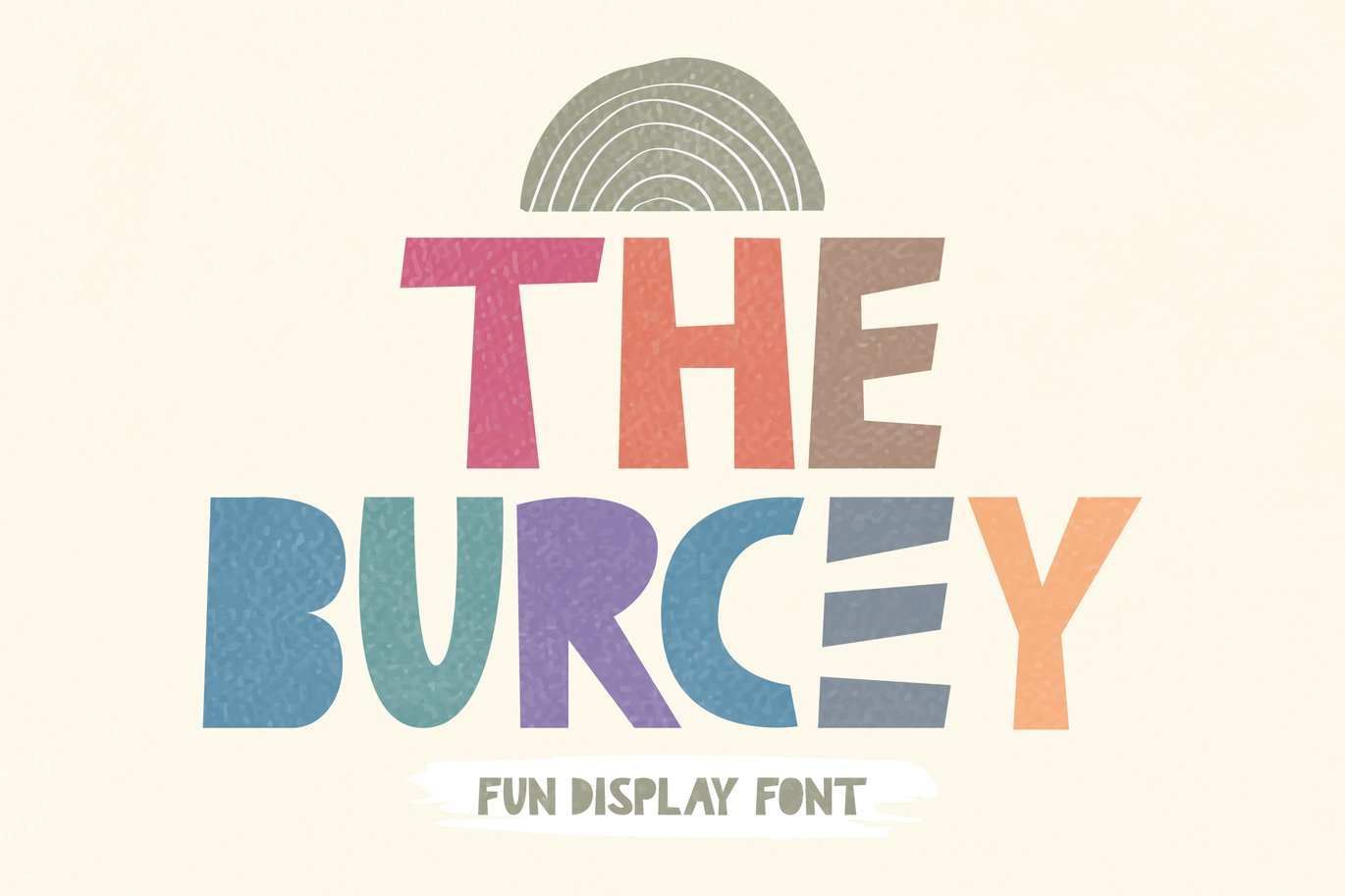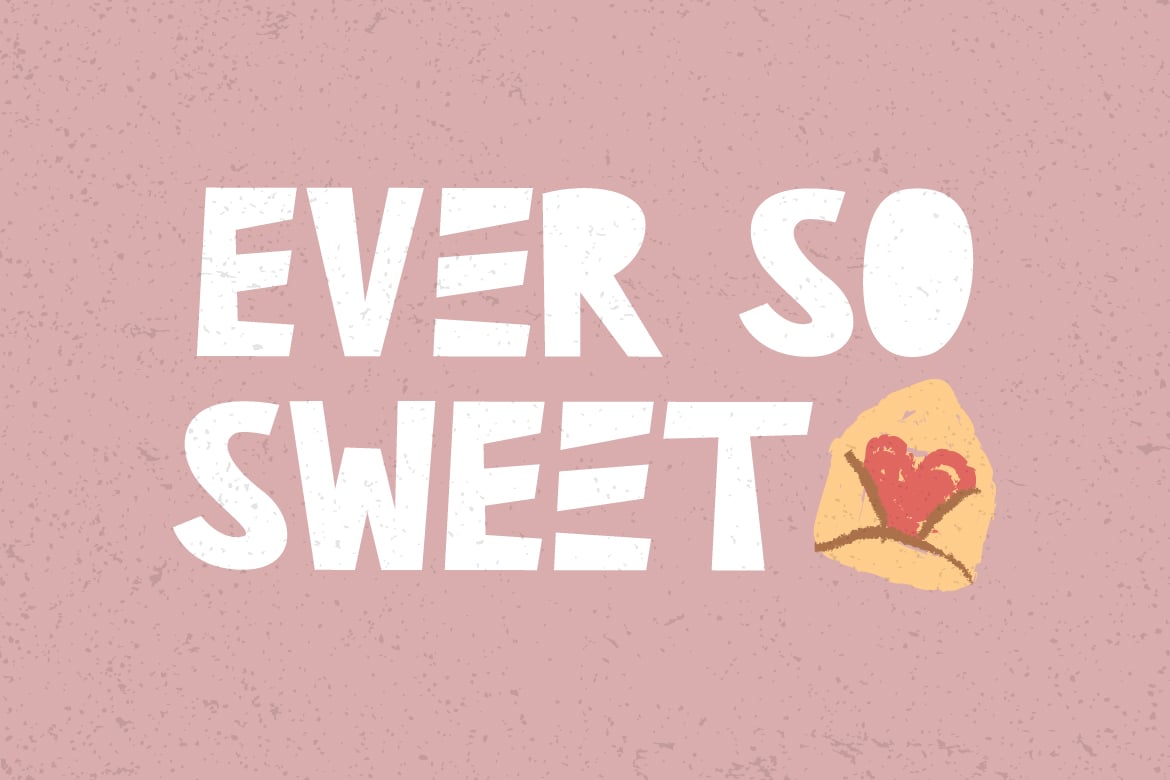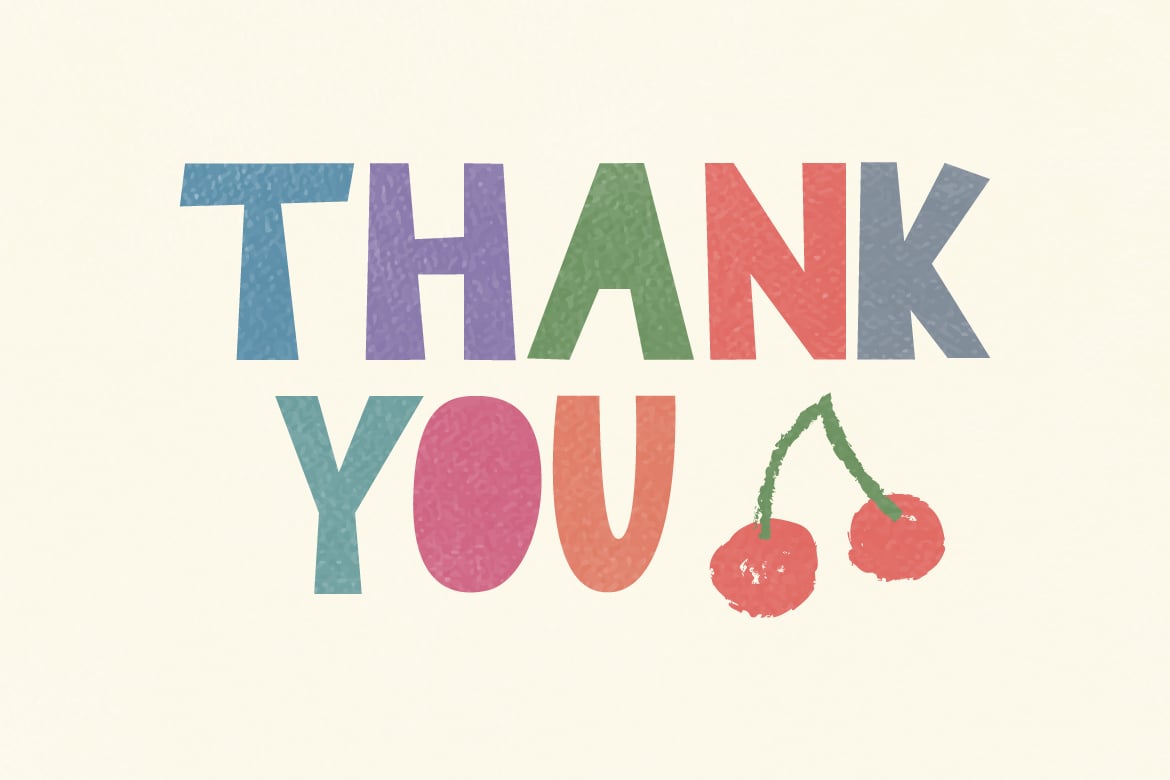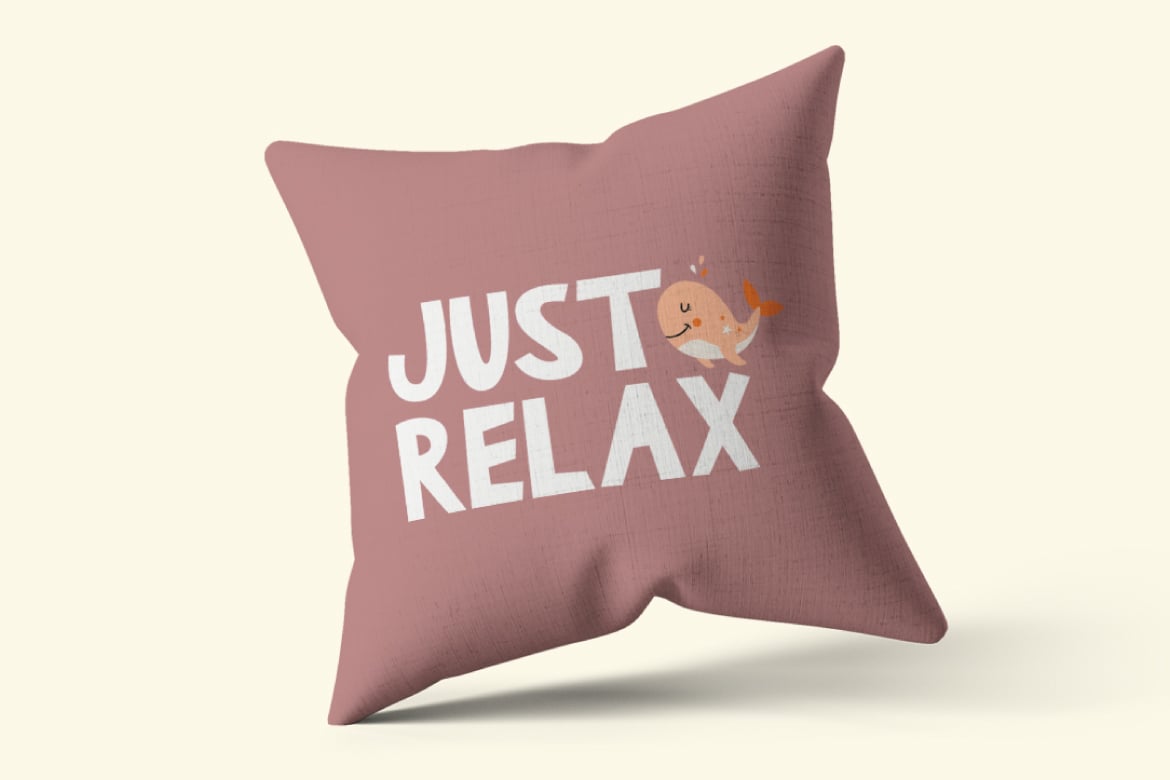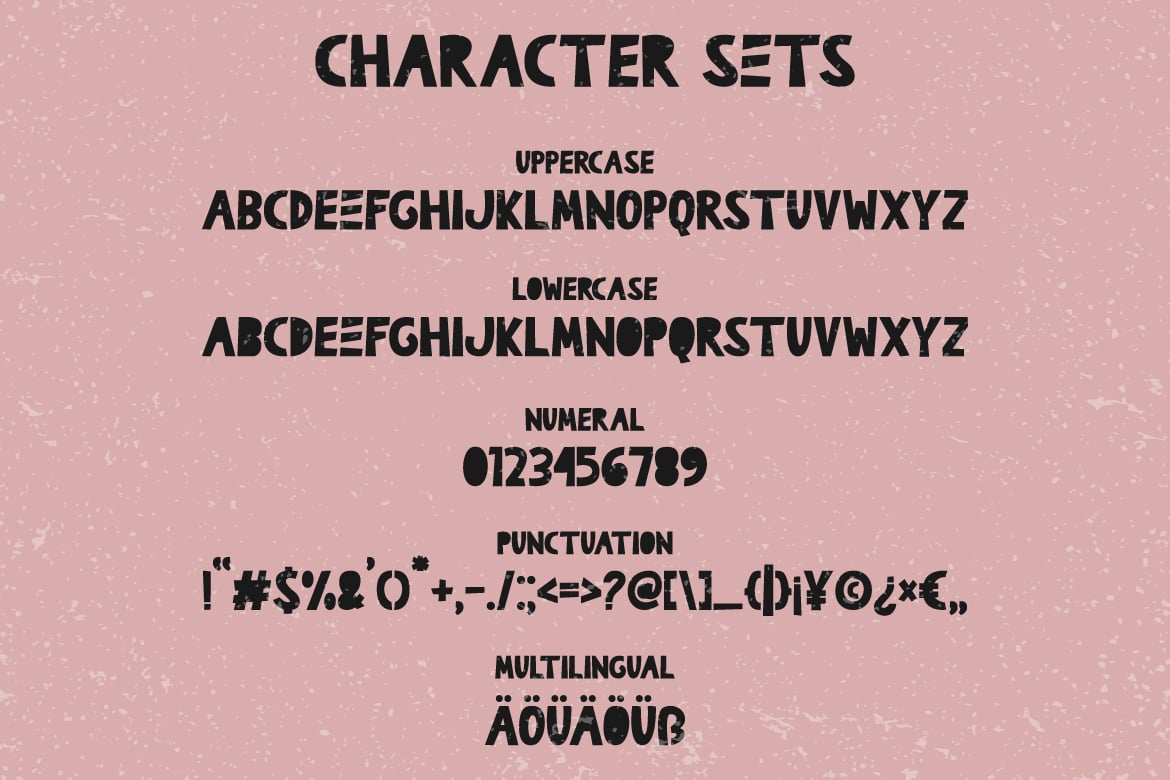
The Burcey – Fun Display Font
A cheerful font is ready to accompany your project with gusto. Can be applied to logo designs, posters, merchandise, quotes, posters, social media posts, branding etc.
- Features: Uppercase, Lowercase, Numeral, Punctuation & Multilingual.